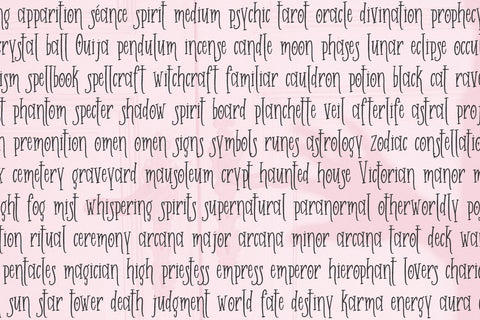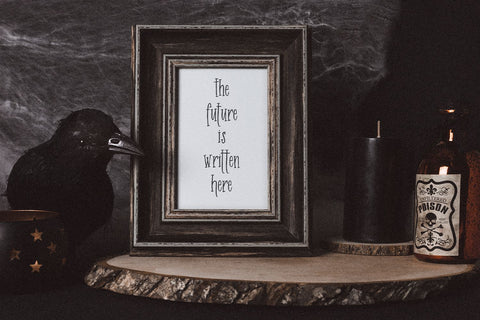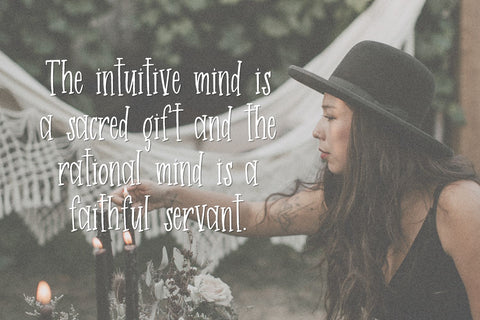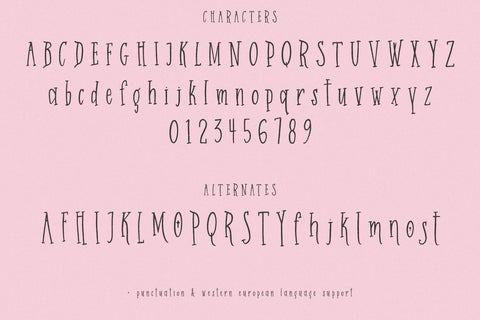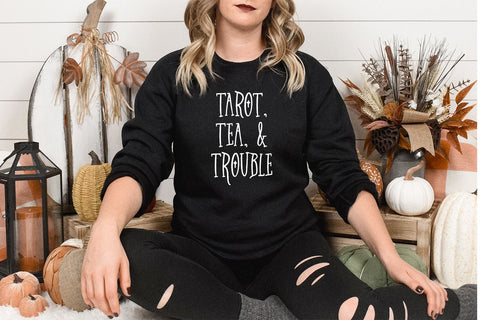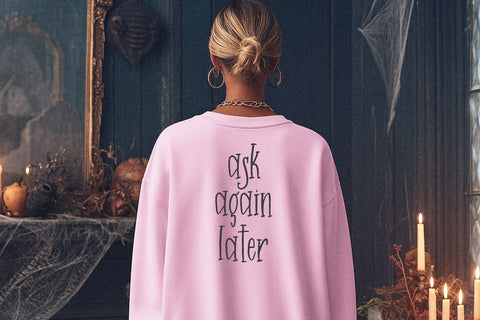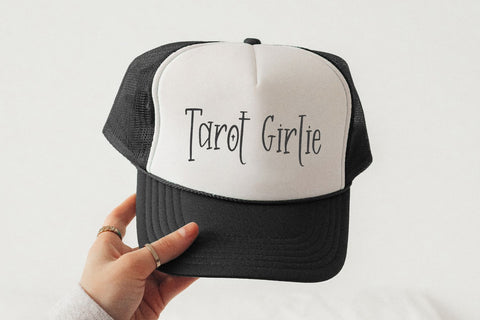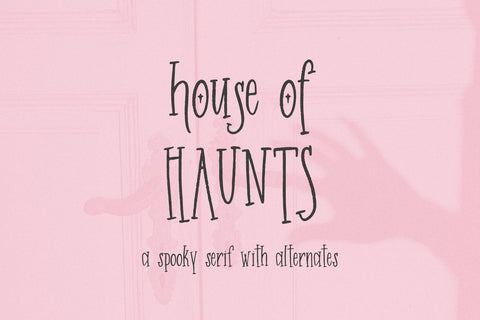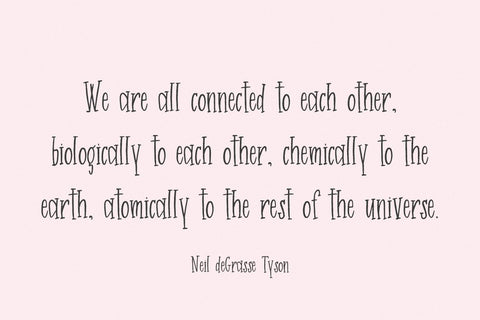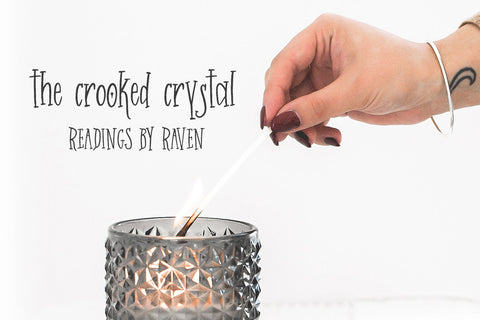
House of Haunts Serif
House of Haunts is a skinny, whimsical serif font that includes alternate characters to customize the look & feel of your next spooky project. I love this font for things like tarot, occult, psychic, Ouija, and other mystical applications. It’s also a great fit for logos, branding, Halloween party invites, home decor signs, apparel, and more.
House of Haunts Serif includes:
- full upper + lowercase characters
- numbers + punctuation
- 25 alternates - A, F, H, I, J, K, L, M, O, P, Q, R, S, T, Y, f, h, j, k, l, m, n, o, s, t